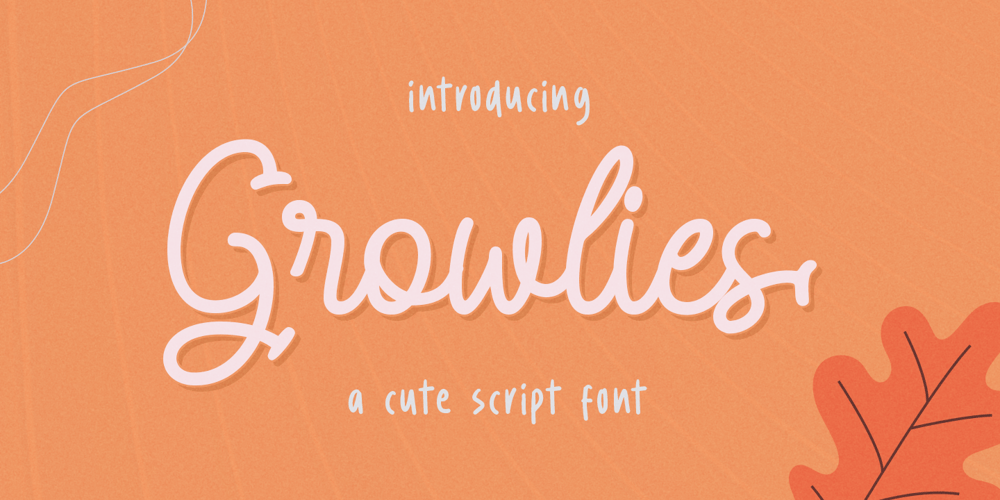
Growlies Font Family was designed by Hendry Juanda and published by Letterhend. Growlies contains 1 styles and family package options. Growslies is a cute script font with playful looks. This type of font perfectly made to be applied especially in storybook children or child theme which is need a standout font, and the other various formal forms such as invitations, labels, logos, magazines, books, greeting / wedding cards, packaging, fashion, make up, stationery, novels, labels or any type of advertising purpose.Features : Uppercase and lowercase numbers and punctuation multilingual ligatures PUA encoded We highly recommend using a program that supports OpenType features and Glyphs panels like many of Adobe apps and Corel Draw, so you can see and access all Glyph variations. How to access opentype feature : letterhend.com/tutorials/using-opentype-feature-in-any-software/Email us to letterhend@gmail.com if you need something! Happy Designing!